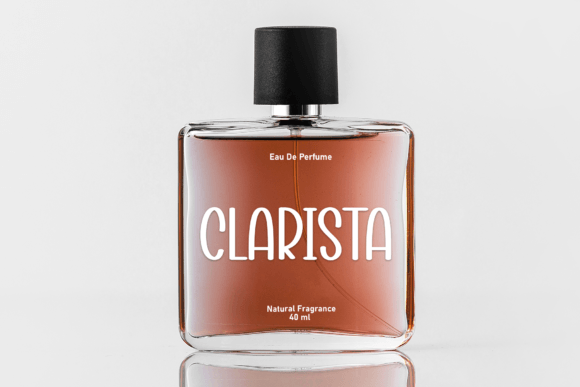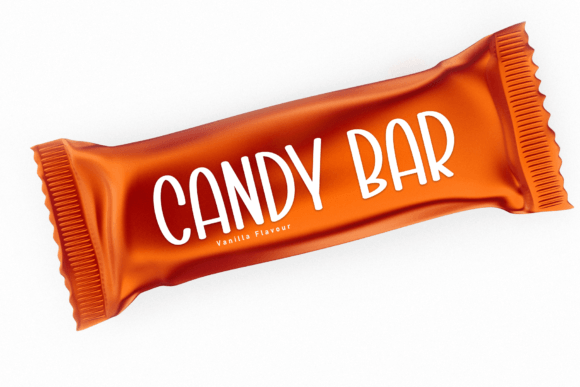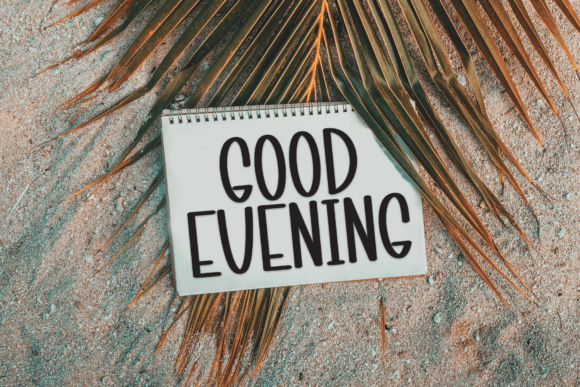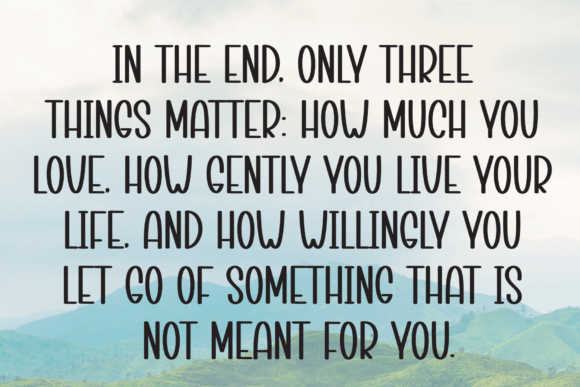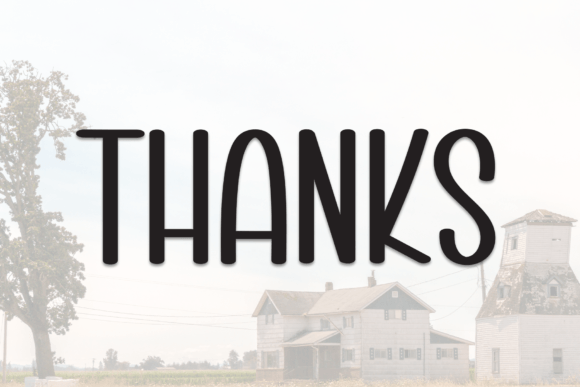
Discover the Charm of Farmhouse Font: A Sweet and Friendly Handwritten Delight
Are you a designer, crafter, or DIY enthusiast looking for a font that captures the essence of rustic charm and whimsy? Look no further than the Farmhouse Font! This sweet and friendly handwritten font is perfect for adding a personal touch to your projects, and its versatility knows no bounds. With Farmhouse Font, the only limit is your imagination!
Farmhouse Font is a beautiful, handcrafted font that exudes a sense of warmth and friendliness. Its natural and unique style makes it incredibly fitting for a wide range of designs, from rustic and vintage-inspired projects to modern and playful ones. The font’s irregularities and quirks give it a charming, homemade feel that’s sure to capture the hearts of your audience.
Characteristics of Farmhouse Font
- Handwritten style: Farmhouse Font is a genuine handwritten font, crafted with love and care to give it a personal and authentic feel.
- Natural and unique: The font’s organic and irregular style makes it stand out from more traditional fonts, adding a touch of whimsy to your designs.
- Versatile: Farmhouse Font can be used for a wide range of projects, from digital designs to print materials, and from rustic to modern themes.
- Easy to read: Despite its handwritten nature, Farmhouse Font is surprisingly easy to read, making it perfect for body text and captions.
Uses for Farmhouse Font
Farmhouse Font is incredibly versatile, and its uses are endless! Here are some ideas to get you started:
- Branding and logos: Use Farmhouse Font to create a unique and memorable brand identity that stands out from the crowd.
- Signs and posters: Add a touch of rustic charm to your signs and posters with Farmhouse Font’s whimsical style.
- Digital designs: Use Farmhouse Font in your digital designs, such as social media graphics, blog headers, and email newsletters.
- Crafting and DIY projects: Add a personal touch to your crafting and DIY projects, such as handmade cards, invitations, and scrapbooking.
- Web design: Use Farmhouse Font as a heading or body font on your website to add a touch of warmth and personality.
To get the most out of Farmhouse Font, here are some tips to keep in mind:
- Mix and match: Combine Farmhouse Font with other fonts to create a unique and visually appealing contrast.
- Play with sizes: Experiment with different font sizes to add emphasis and create visual hierarchy.
- Add embellishments: Use Farmhouse Font in conjunction with embellishments, such as illustrations or graphics, to add an extra layer of interest.
- Experiment with colors: Try Farmhouse Font with different colors and textures to add depth and personality to your designs.
Farmhouse Font is a sweet and friendly handwritten font that’s perfect for designers, crafters, and DIY enthusiasts looking to add a touch of rustic charm and whimsy to their projects. With its natural and unique style, versatility, and ease of use, Farmhouse Font is sure to become a favorite in your design arsenal. So why wait? Get creative and let your imagination run wild with Farmhouse Font!